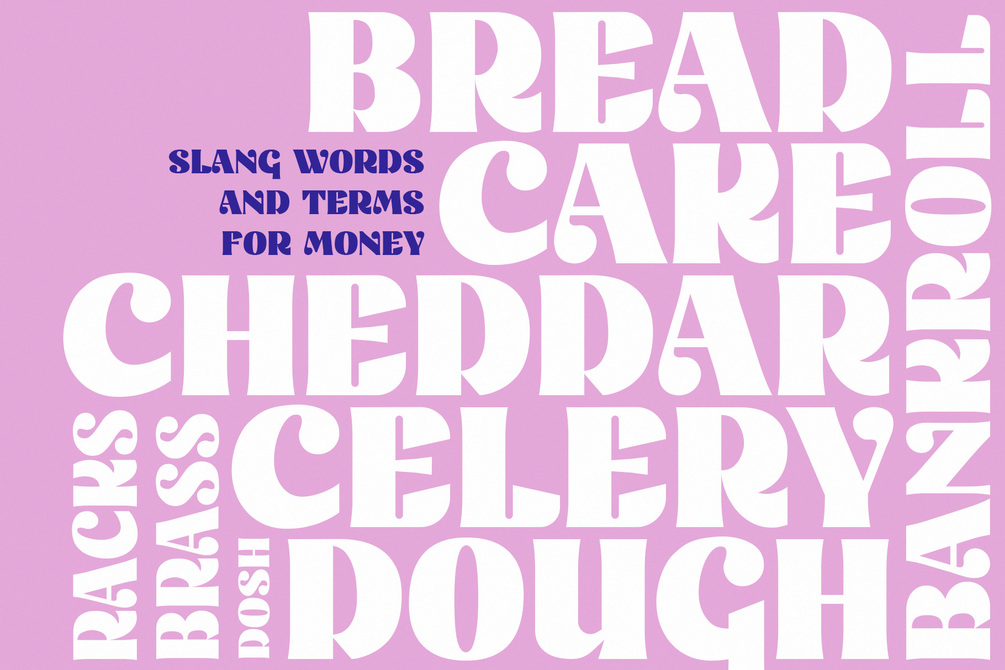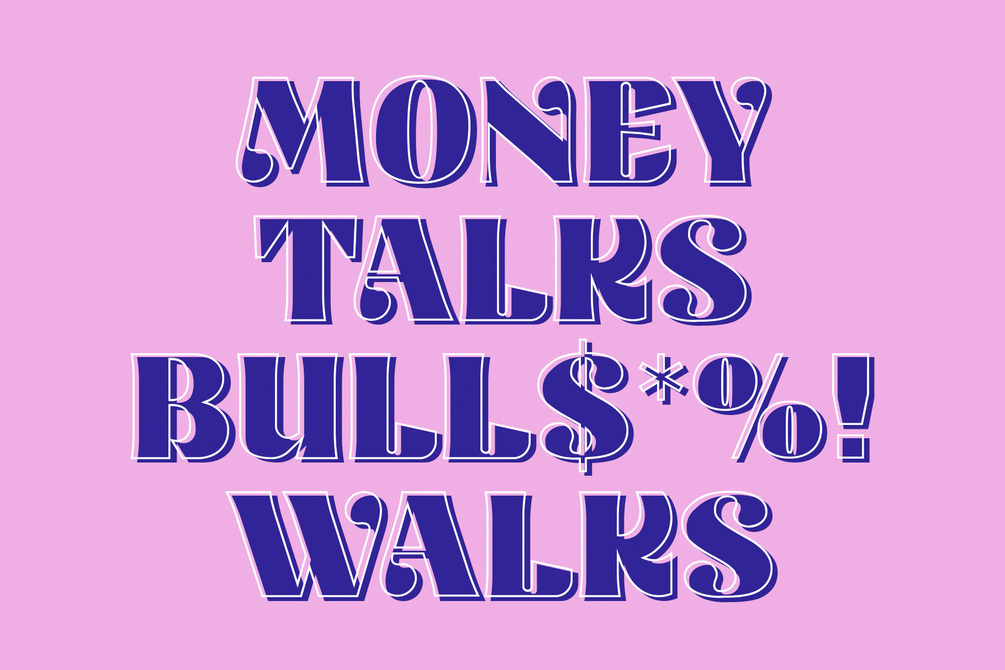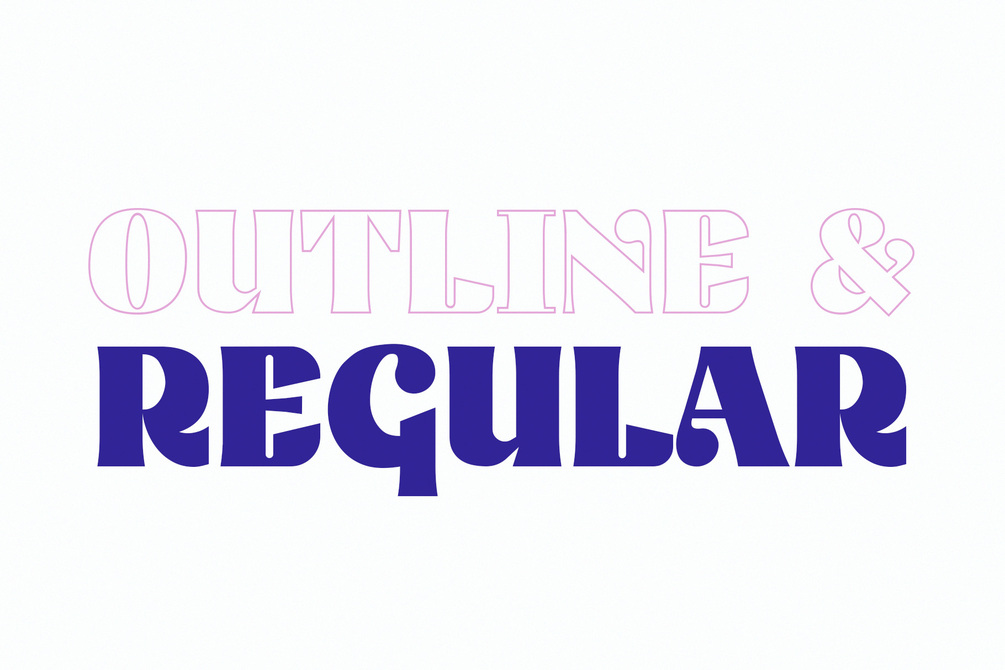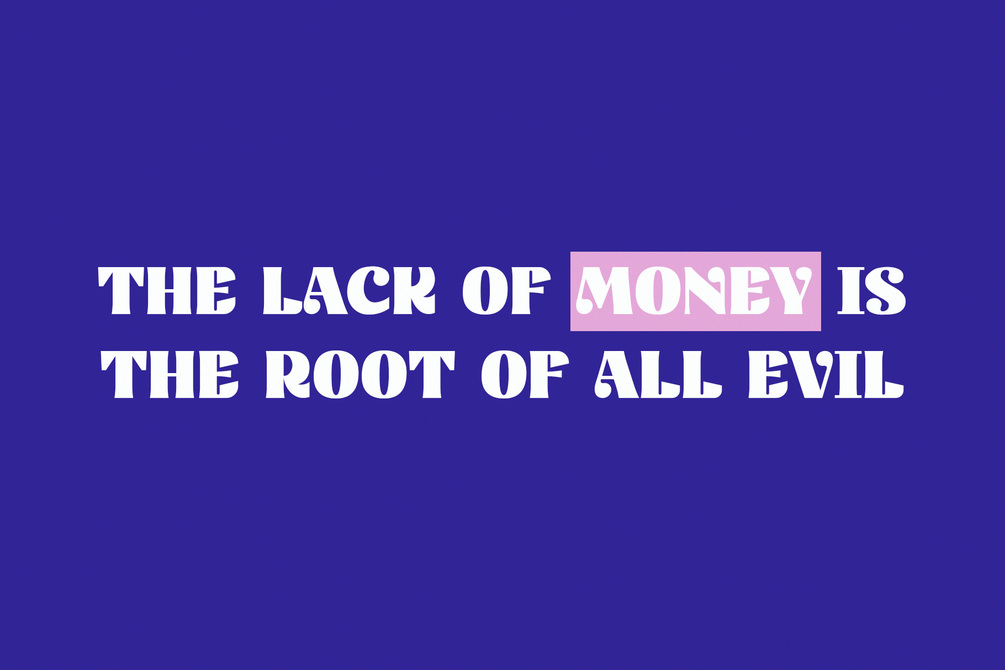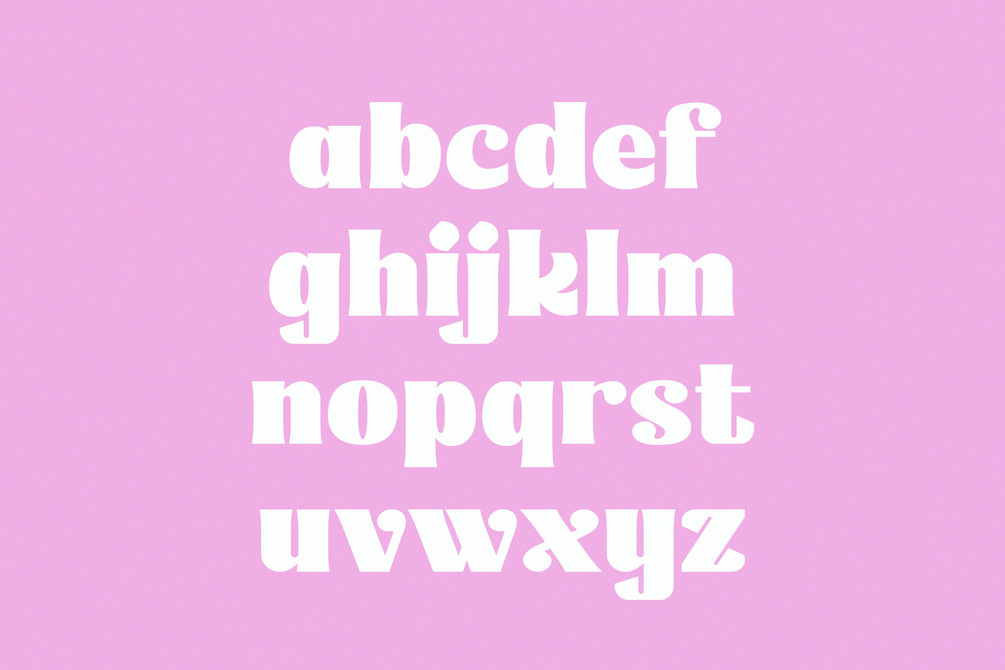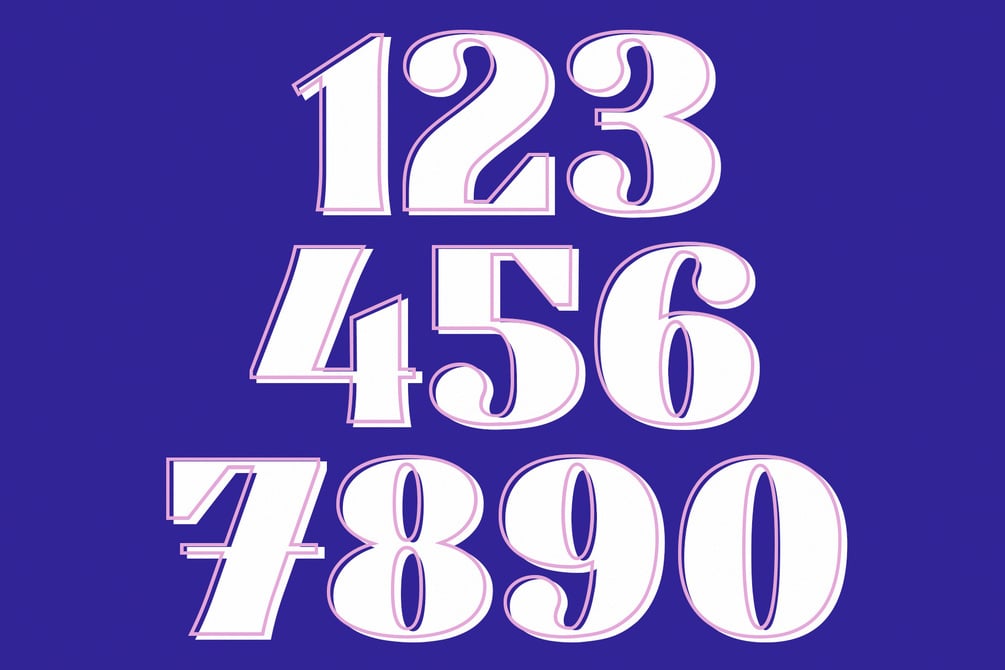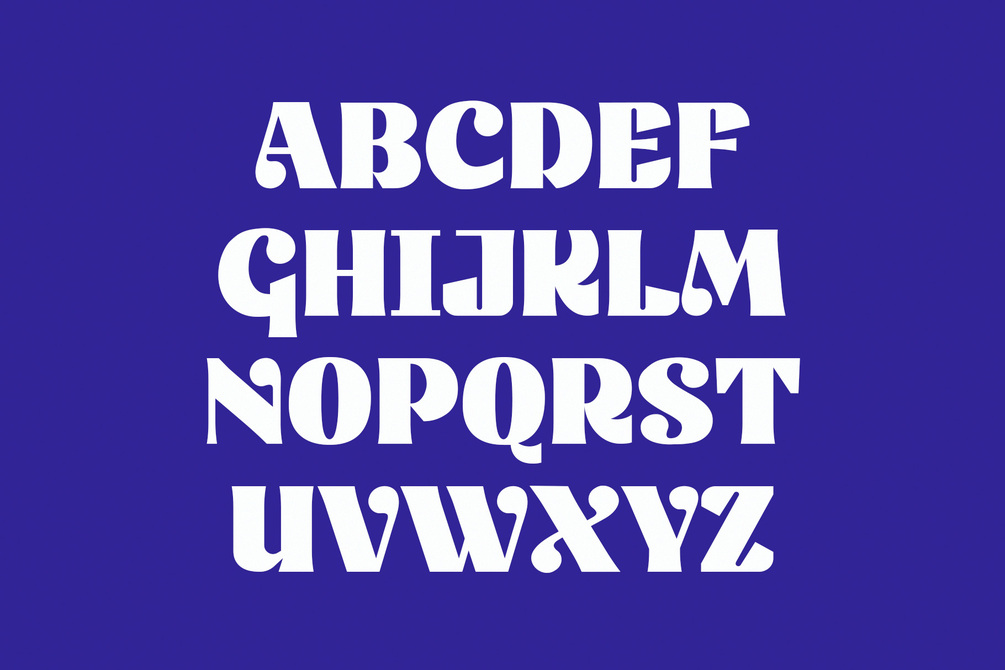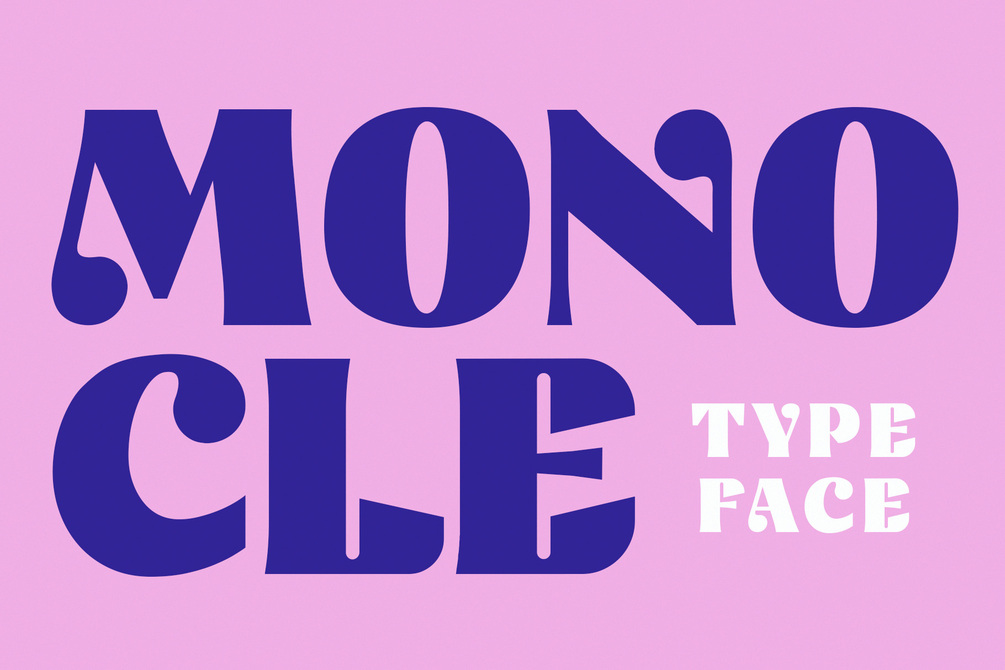
Monocle
Monocle is a thick vintage typeface which looks great at large sizes. If you want to grab attention or make a statement, then this font speaks volumes.
Monocle consists of two versions, outline and regular. Both fonts contain upper and lowercase characters. You can use this font for headlines, logos, posters, book covers, and general display use as well as short strings of text.